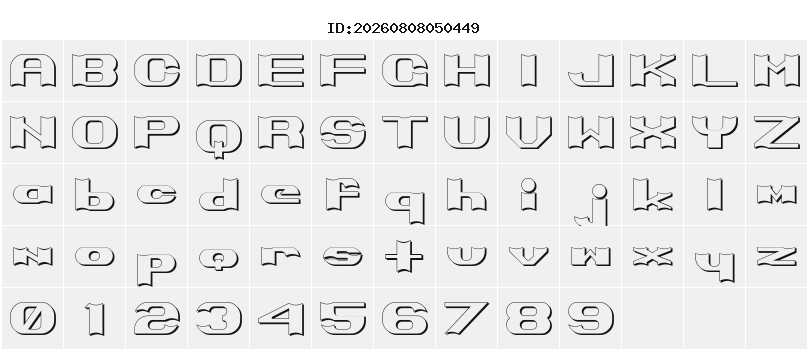
Primo Bright Preview
• Font Name: Primo Bright
• Full Font Name: Primo Bright
• Designer: Rich Gast
• Manufacturer: GreyWolf WebWorks
About Primo Bright.ttf
Primo Bright.ttf is a modern, elegant sans-serif font designed for ultimate readability and visual harmony. Perfect for branding, headlines, web design, and print materials.